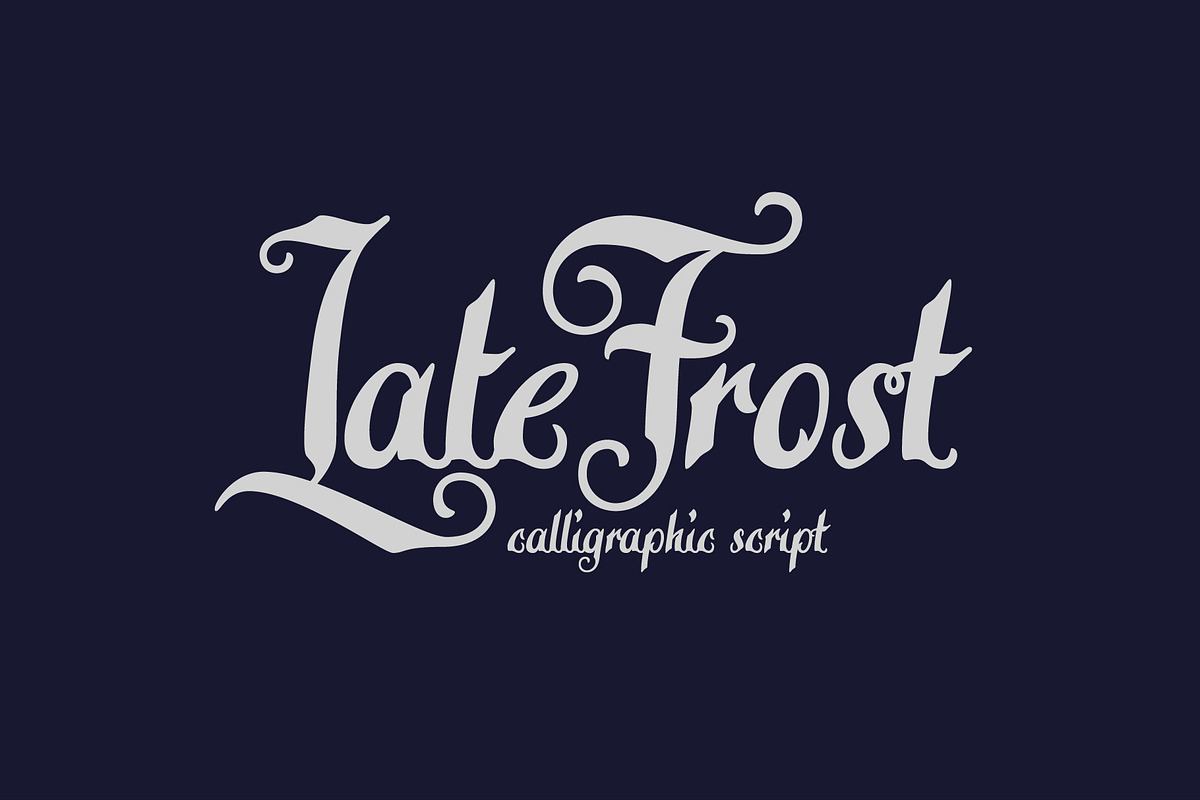
Late Frost Font Free Download is a stylish and slightly whimsical typeface that evokes the crisp elegance of chilly mornings and quiet winter beauty. With its soft curves and subtle serif details, this font is perfect for seasonal designs, holiday cards, cozy branding, and editorial layouts that need a touch of frosty charm.
Whether you're designing for winter-themed products, boutique packaging, or elegant invitations, Late Frost delivers a gentle, refined aesthetic that feels both warm and sophisticated. Its delicate yet readable style makes it versatile for both headers and body text.
Designers love its graceful, atmospheric character that instantly sets a mood. Ready to elevate your winter designs or add a subtle poetic touch? Download Late Frost Font Free Download and experience the cool elegance this font brings to any creative project.